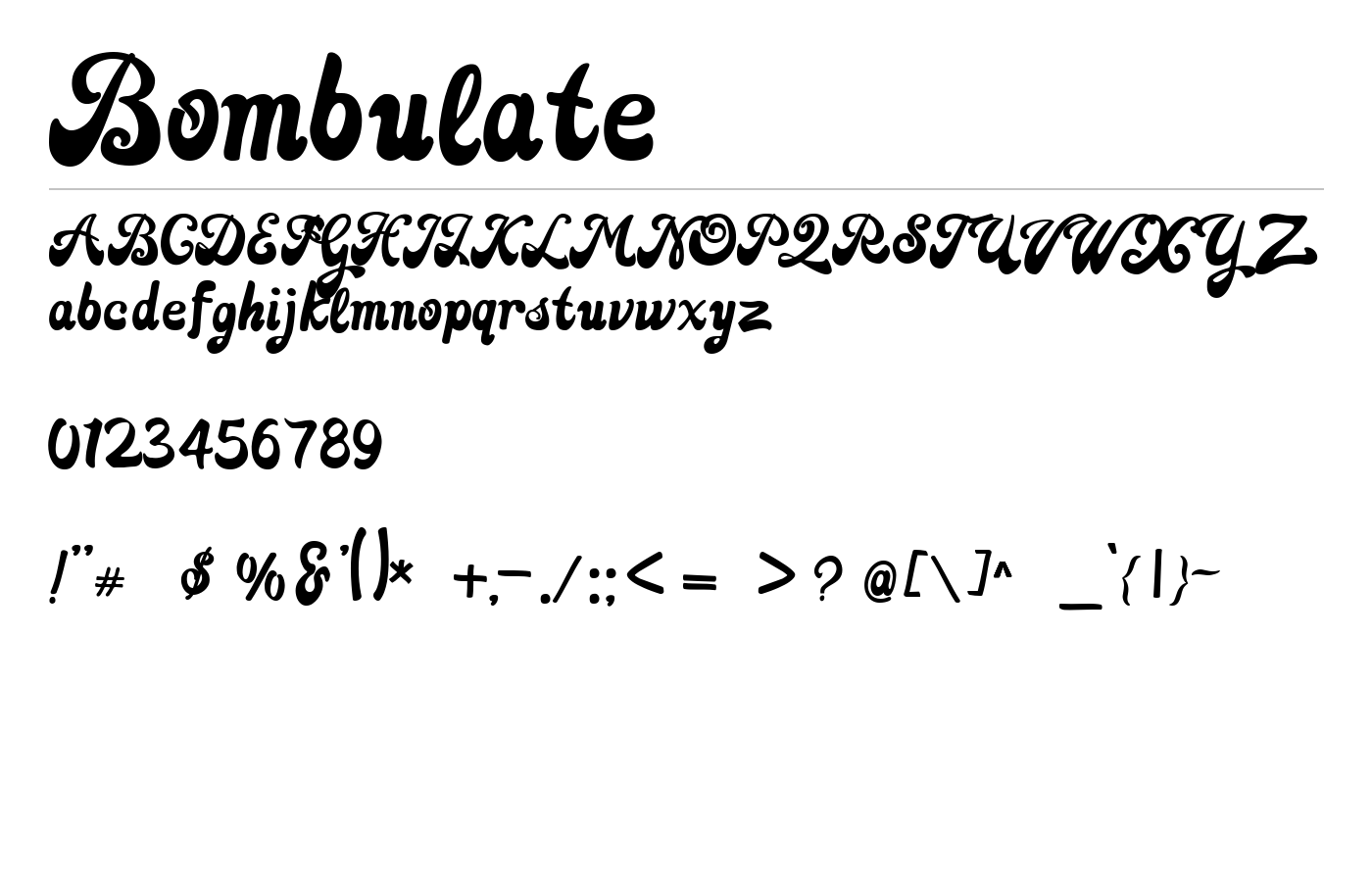
Bombulate is a bold, playful script font with a smooth, rounded style that features lively curves and a slightly condensed form. Its high contrast strokes and unique letterforms give it a retro yet friendly charm, making it ideal for eye-catching headlines, logos, and creative branding where a vintage and approachable tone is desired. This font works well in contexts that require a distinctive, handmade feel with strong personality and flair.
Bombulate Font
About Bombulate Font